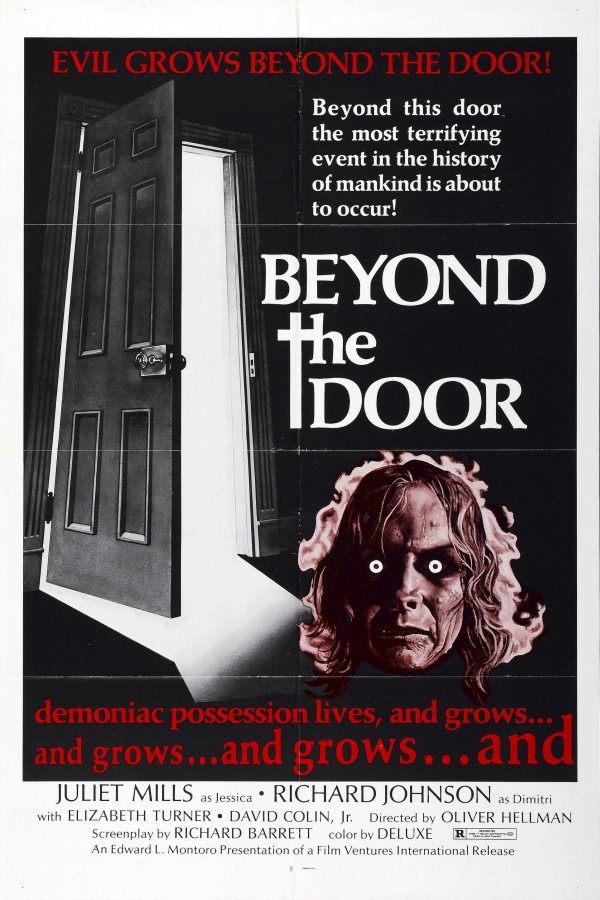
Beyond the Door Font
Fonts in UseBeyond the Door is a 1974 horror movie about a woman who becomes possessed by a demonic entity after undergoing an unusual pregnancy. It was directed by Ovidio G. Assonitis.
It is likely that the movie title on the poster features Palatino Bold, a typeface created by Hermann Zapf. Palatino is a classic serif font inspired by Italian Renaissance humanist typefaces with letterforms resembling broad nib pen strokes.